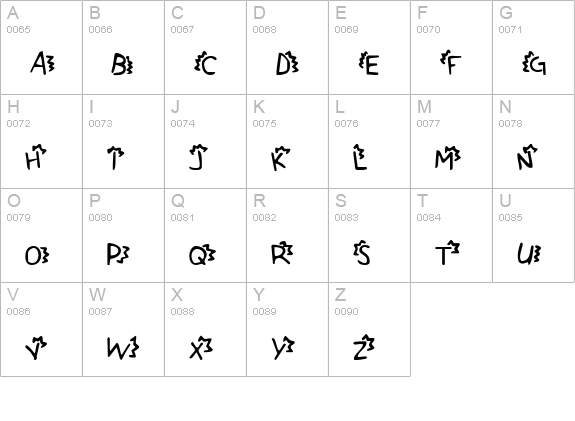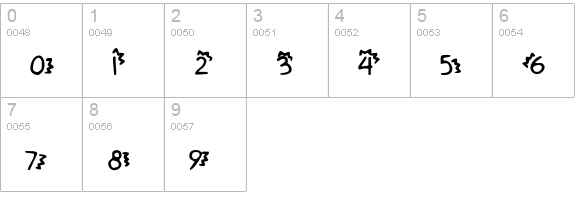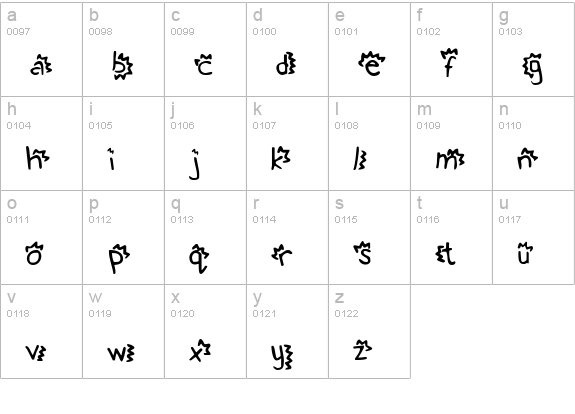
Betty's Confetti Font Details
Introducing Betty's Confetti font, a whimsical and playful typeface perfect for adding a touch of fun to your projects. This delightful font features a unique confetti-inspired design that will make your text stand out in a crowd. With its charming and cheerful appearance, Betty's Confetti font is sure to bring a smile to your audience's face. But the best part? Betty's Confetti font is completely free to download! Yes, you read that right - this delightful font can be yours at no cost. Simply head over to FontsMarket.com to get your hands on this delightful typeface and start adding a sprinkle of joy to your designs today. Don't miss out on this fantastic opportunity to elevate your projects with Betty's Confetti font - download it now and let your creativity shine!